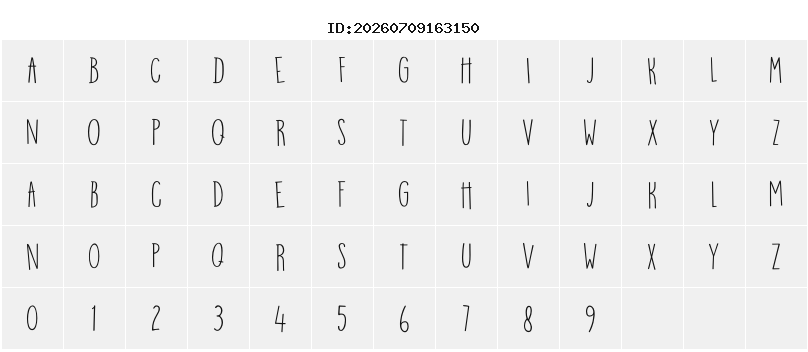
DK Mango Smoothie Preview
• Font Name: DK Mango Smoothie
• Designer: David Kerkhoff
• Manufacturer: David Kerkhoff
About DK Mango Smoothie.otf
DK Mango Smoothie.otf is a modern, elegant sans-serif font designed for ultimate readability and visual harmony. Perfect for branding, headlines, web design, and print materials.